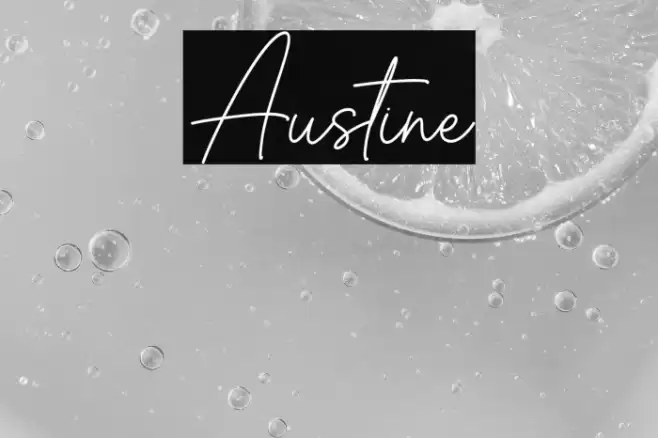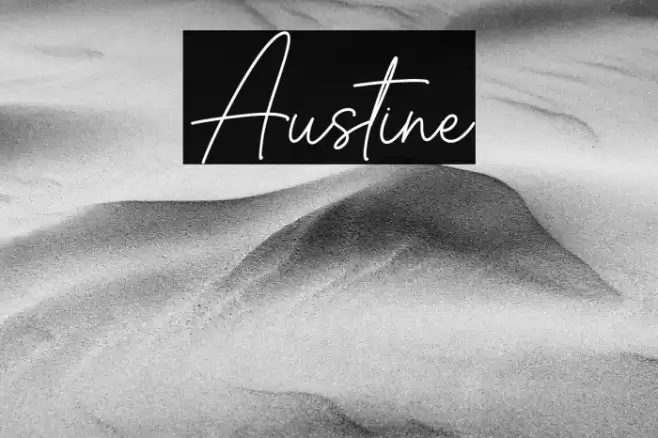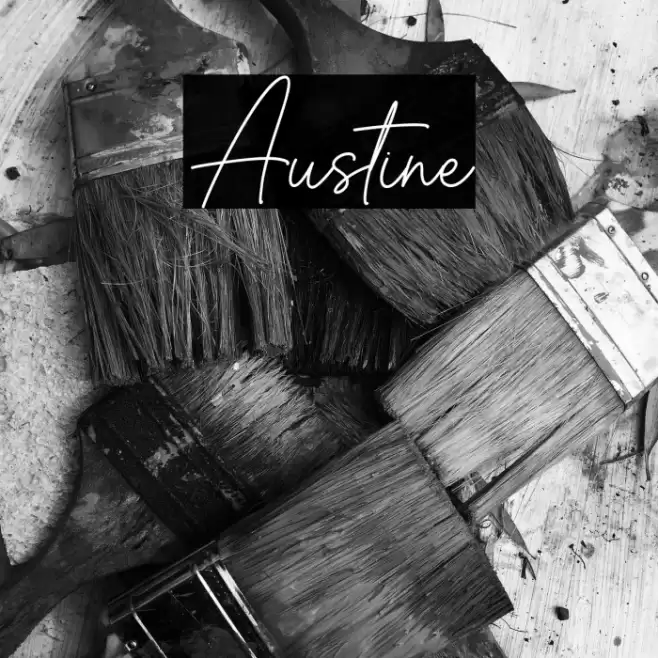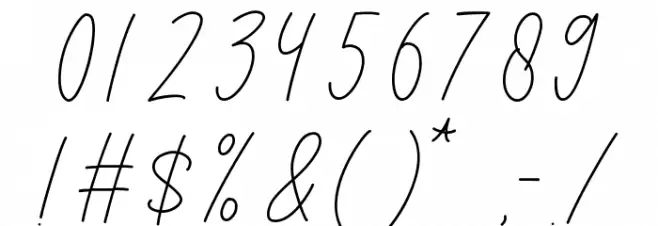
Austine Font
Austine Description
This font features a flowing, handwritten style with a casual elegance. The uppercase letters are tall and slightly slanted, giving a sense of movement and fluidity. The lowercase letters maintain a consistent slant, with smooth curves and a natural, organic feel. The numerals are distinct and easy to read, complementing the overall aesthetic. Special characters are integrated seamlessly, maintaining the font's cohesive look. This font is ideal for projects that require a personal touch, such as invitations, greeting cards, or branding materials.
A flowing, handwritten font with a casual elegance and natural feel from Regular fonts.
- Proposed Projects: Invitations, greeting cards, branding materials, personal notes, and artistic projects.
- Overall Style: Casual, Elegant, Organic
- Use Case: Headlines, Logos, Personal notes